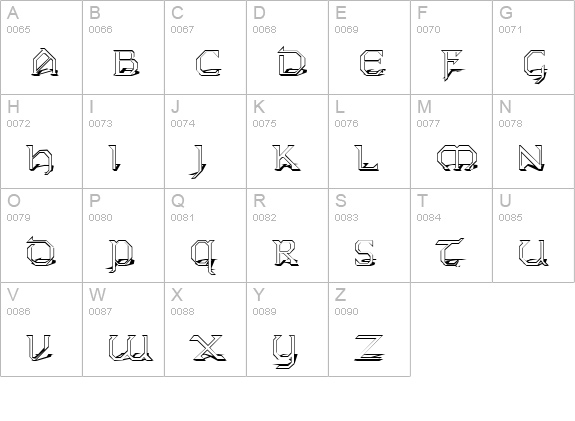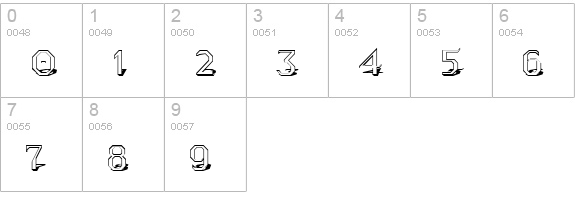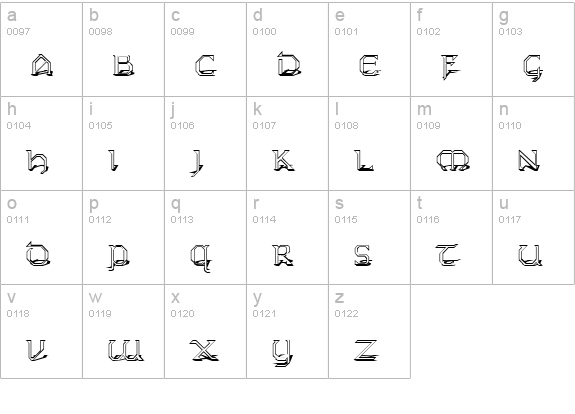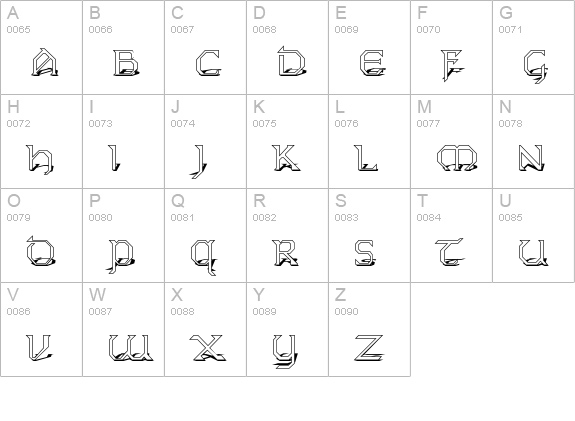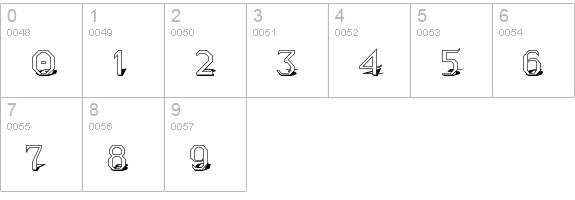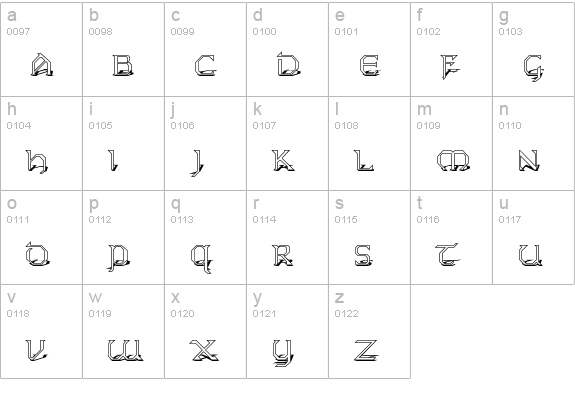
KarthagoShadow Font Details
KarthagoShadow font is a unique and elegant typeface that exudes a sense of mystery and sophistication. With its bold and dynamic appearance, this font is perfect for creating eye-catching headlines, posters, and logos. The intricate shadow effect adds depth and dimension to any text, making it stand out from the crowd. The best part? KarthagoShadow font is completely free to download at FontsMarket.com. This means you can elevate your design projects without breaking the bank. Don't miss out on the opportunity to add this stunning font to your collection and take your designs to the next level. Download KarthagoShadow font today and unleash your creativity!